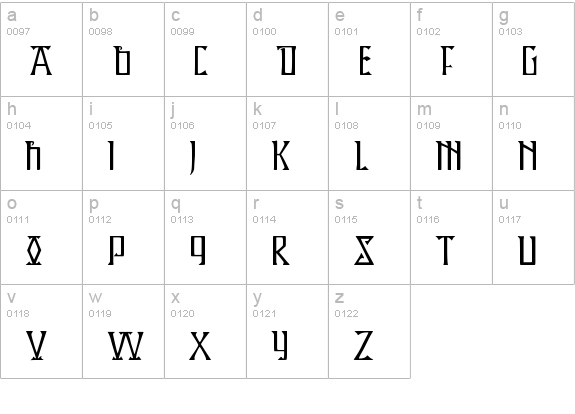
Kells Square Font Details
Introducing Kells Square, a captivating and versatile font that effortlessly combines modern aesthetics with a touch of vintage charm. This font is the perfect choice for those seeking a unique and eye-catching typeface to elevate their designs to new heights. With its clean lines and geometric shapes, Kells Square exudes a sense of professionalism and sophistication, making it ideal for a wide range of projects, from branding and logo design to packaging and editorial layouts. What sets Kells Square apart is not just its striking visual appeal, but also its accessibility. This font is freely available to download at FontsMarket.com, allowing designers and enthusiasts alike to effortlessly incorporate it into their creative endeavors without any financial constraints. Whether you're a seasoned professional or an aspiring designer, Kells Square provides you with the tools to bring your ideas to life, all at no cost. Crafted with utmost precision and attention to detail, Kells Square offers an extensive character set, including uppercase and lowercase letters, numerals, punctuation marks, and a variety of special characters. This comprehensive range ensures that you have all the necessary elements to create visually stunning and cohesive designs that perfectly reflect your vision. The versatility of Kells Square knows no bounds. Its bold and impactful presence makes it an excellent choice for headlines and titles, while its legibility and clarity make it equally suitable for body text and smaller sizes. Whether you're working on a brand identity project, an editorial layout, or even a website design, Kells Square will effortlessly adapt to any context, bringing a touch of elegance and professionalism to your creations. So why wait? Download Kells Square for free today at FontsMarket.com and unlock a world of endless design possibilities. With its seamless integration into your creative process and its ability to effortlessly elevate your designs, Kells Square is a font that you simply can't afford to miss. Embrace the power of free and let Kells Square be your trusted companion in turning your creative visions into reality.